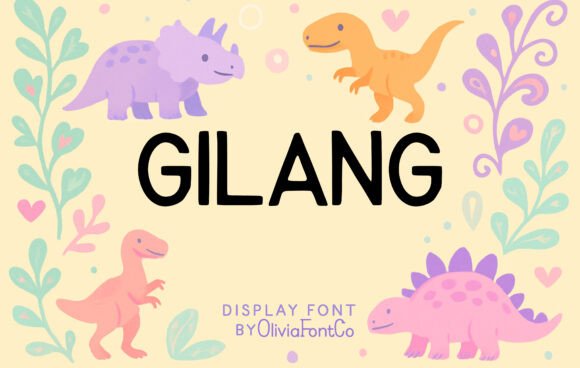
Gilang Font: Elevate Your Creative Projects with a Versatile and Legible Typeface
In the realm of typography, a font can make or break the visual appeal of a design project. With the numerous options available, finding the perfect font that embodies both style and functionality can be a daunting task. However, if you’re looking for a typeface that can elevate your creative ideas to new heights, look no further than Gilang Font. Designed to be a true favorite among designers and creative enthusiasts, Gilang Font boasts a unique blend of legibility, versatility, and aesthetic appeal that makes it an ideal choice for a wide range of design applications.
The Design Philosophy Behind Gilang Font
Gilang Font is crafted with a clear design philosophy in mind: to create a typeface that is not only visually stunning but also highly functional. Its design ensures that it can be used seamlessly as both a title font and body text, making it an incredibly versatile addition to any designer’s toolkit. The font’s creator aimed to produce a clean, modern look that would cater to the needs of various design projects, from editorial and advertising to branding and personal creative endeavors.
Key Features of Gilang Font
So, what makes Gilang Font stand out from the myriad of typefaces available today? Here are some of its key features:
• Legibility: One of the foremost concerns in typography is how well a font can be read. Gilang Font excels in this area, offering clear and concise letterforms that ensure your message is communicated effectively, whether it’s used in a magazine headline or as body text in a lengthy article.
• Versatility: This font is designed to adapt to various design needs. Its clean and modern aesthetic makes it suitable for a broad spectrum of projects, including but not limited to magazine headlines, t-shirts, social media graphics, branding materials, wedding invitations, and greeting cards.
• Aesthetic Appeal: Gilang Font has a unique charm that adds a professional yet friendly touch to any design. Its lines are smooth, and its characters are balanced, creating a visually appealing effect that can capture the audience’s attention.
Applications of Gilang Font
Given its versatile nature, Gilang Font can be employed in a multitude of design projects. Here are some of the areas where this font truly shines:
• Magazine Headlines and Editorials: Use Gilang Font to create striking headlines that draw readers in. Its legibility and aesthetic appeal make it perfect for both feature articles and editorial pieces.
• T-Shirts and Apparel: The font’s clear and modern look translates well onto clothing and accessories, making it a great choice for brand merchandise or personal fashion statements.
• Social Media Graphics: In the digital age, social media presence is crucial. Gilang Font can help you create engaging and professional-looking posts, stories, and banners that stand out.
• Branding and Logo Design: For businesses looking to establish a strong brand identity, Gilang Font offers a clean and contemporary look that can be tailored to fit various brand personalities.
• Wedding Invitations and Cards: Add a touch of elegance and sophistication to your wedding invitations, greeting cards, and other stationery with Gilang Font.
Why Choose Gilang Font?
With so many fonts available, why should Gilang Font be your go-to choice? The answer lies in its balanced design, which offers both style and substance. Unlike fonts that may excel in one area but fall short in another, Gilang Font provides a well-rounded solution that meets the demands of modern design.
Its ability to be both a headline and a body text font makes it incredibly convenient for designers who often have to juggle multiple typefaces in a single project. Moreover, its aesthetic appeal ensures that your designs will look professional and polished, helping you to leave a lasting impression on your audience.
Tips for Using Gilang Font Effectively
To get the most out of Gilang Font, consider the following tips:
• Experiment with Sizes: While Gilang Font is legible at various sizes, experimenting with different sizes can help you achieve the perfect balance between style and readability for your project.
• Play with Colors: The font’s clean design makes it versatile enough to work well with a wide range of colors. Don’t be afraid to experiment with different color schemes to find the one that best suits your design.
• Mix and Match: Although Gilang Font is versatile enough to be used as both a headline and body text, mixing it with other fonts can add depth and interest to your design. Ensure that the fonts you pair it with complement its style.
Gilang Font is more than just a typeface; it’s a tool that can elevate your creative projects to new heights. Its unique blend of legibility, versatility, and aesthetic appeal makes it an invaluable asset for designers and creative enthusiasts alike. Whether you’re working on a magazine, a branding project, or simply looking for a font that can add a professional touch to your social media graphics, Gilang Font is an excellent choice.
By incorporating Gilang Font into your design workflow, you’ll not only streamline your creative process but also ensure that your projects stand out in a crowded digital landscape. So, why wait? Explore the possibilities that Gilang Font has to offer and discover how it can become your true favorite in the world of typography.